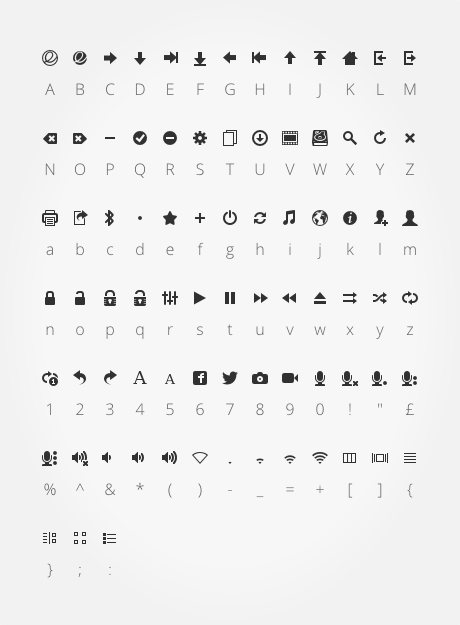
This is an icon font based on the elementary icon set's symbolic icons, with some tweaks (mainly the removal of gradients, tweaking to improve look at larger sizes and retracing of characters which did not convert properly the first time.